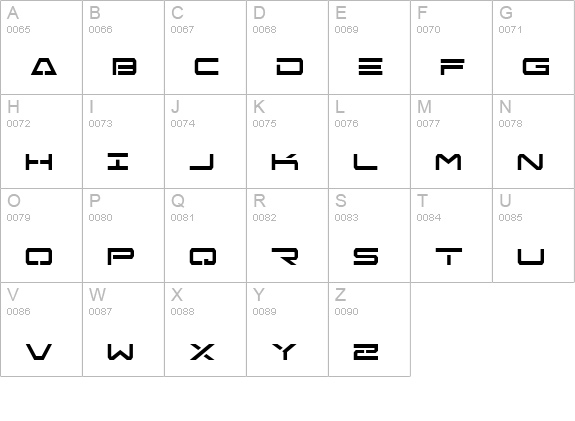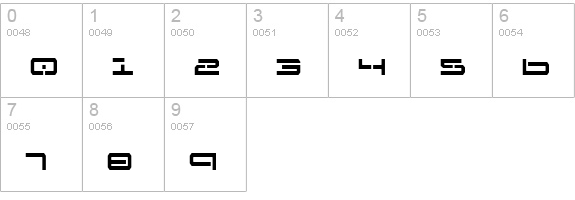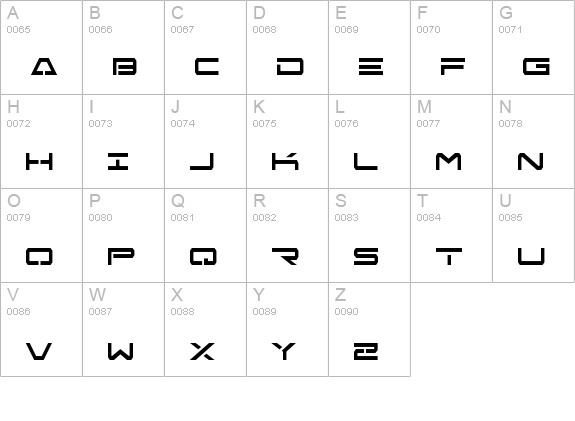
Free Agent Condensed Font Details
Free Agent Condensed is a distinctive, condensed-width variant in the Free typeface family \xE2\x80\x94 well suited to design and typography projects.
Free Agent Condensed font is a sleek and modern typeface that exudes professionalism and sophistication. With its clean lines and condensed letterforms, this font is perfect for creating eye-catching designs that demand attention. Whether you're designing a logo, poster, or website, Free Agent Condensed font will elevate your project to the next level with its contemporary and stylish appearance. What makes Free Agent Condensed font even more appealing is that it is freely available to download at FontsMarket.com. This means you can easily access this versatile font and use it in your personal and commercial projects without any restrictions. Embrace the power of Free Agent Condensed font and make your designs stand out from the crowd with its unique and impactful aesthetic.